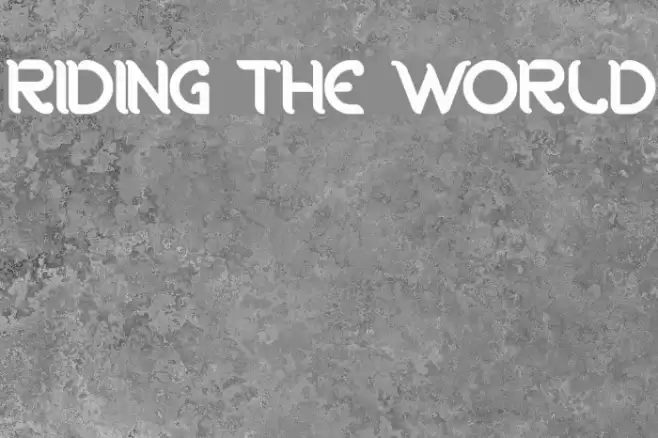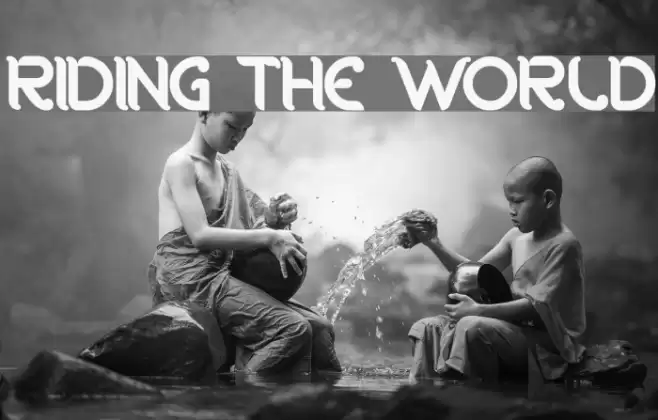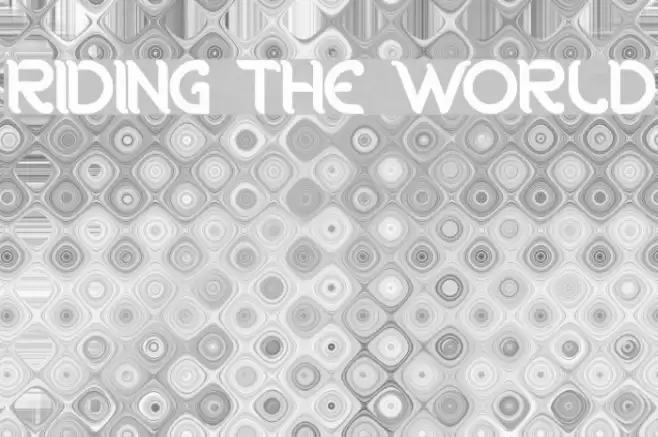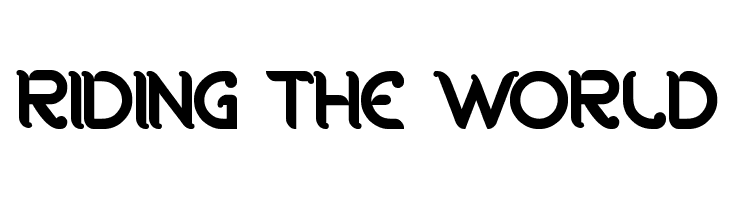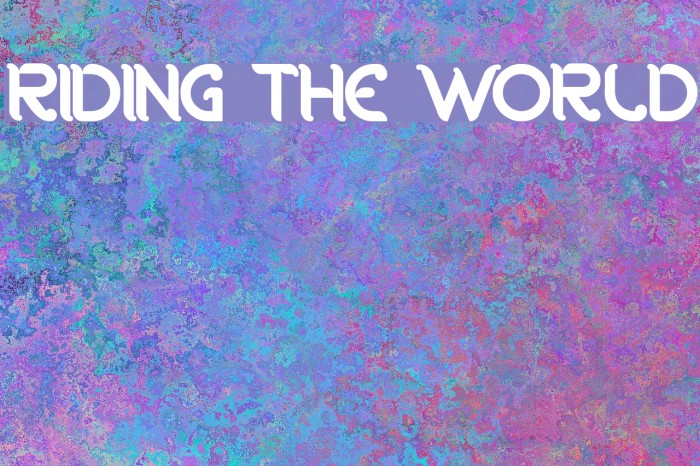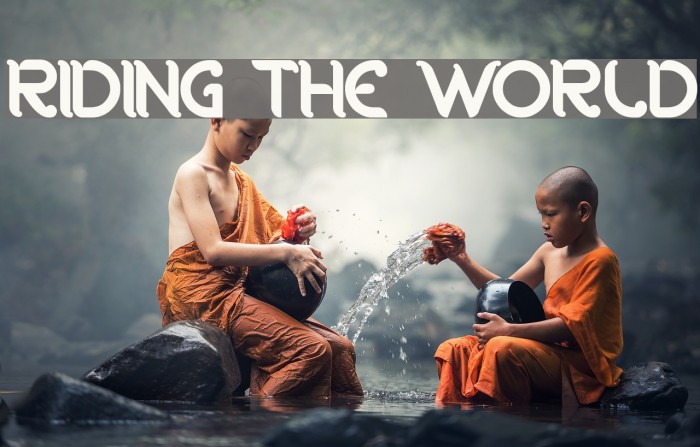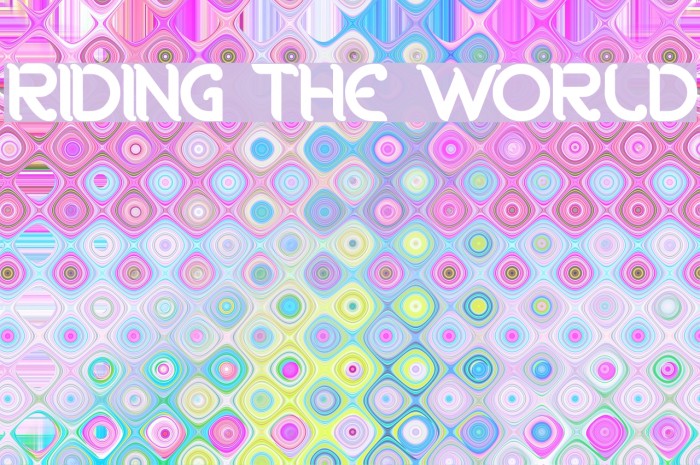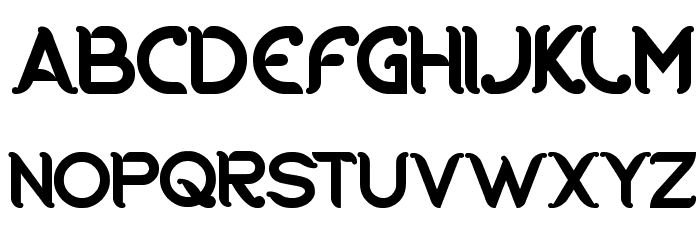
RIDING THE WORLD Font
RIDING THE WORLD Description
This font features a unique and bold design with rounded edges and a playful, modern aesthetic. The characters are well-defined with a consistent stroke width, giving it a clean and cohesive look. The rounded terminals add a touch of softness, making it approachable and friendly. The uppercase letters are distinct and easily readable, while the overall style maintains a contemporary feel. This font is versatile and can be used in various design projects that require a modern and engaging typeface.
A bold, modern font with rounded edges and a playful aesthetic from Uncategorized fonts.
- Proposed Projects: Ideal for branding, advertising, packaging, and digital media projects.